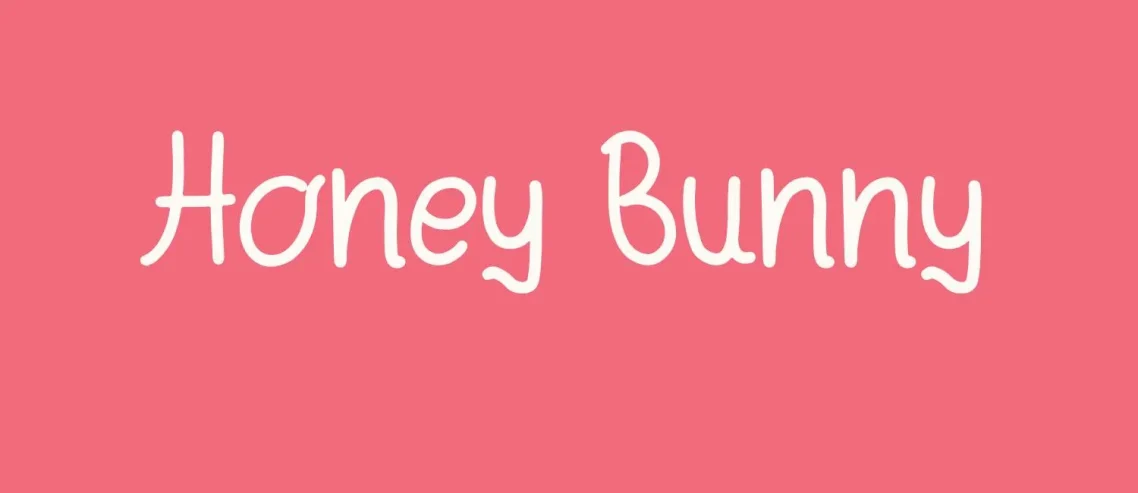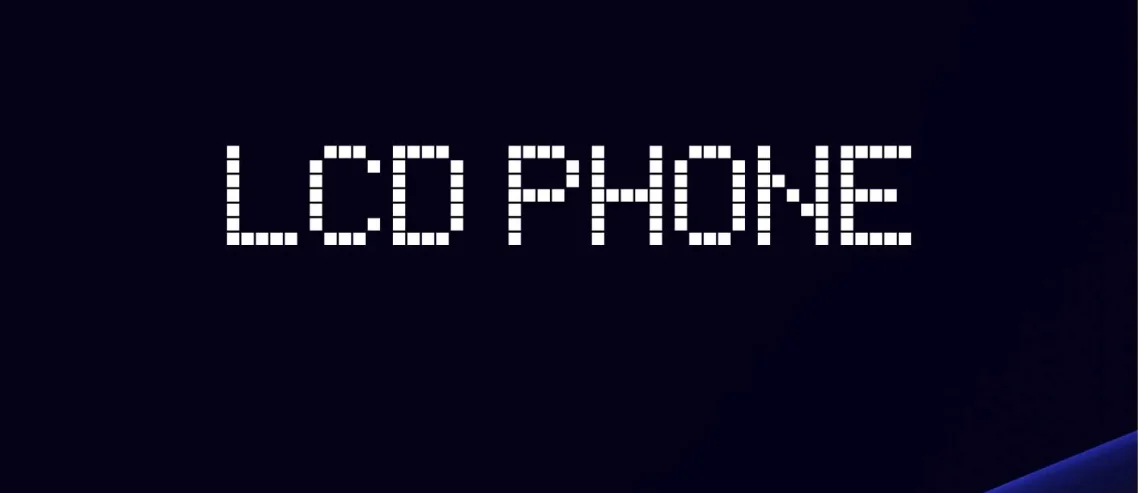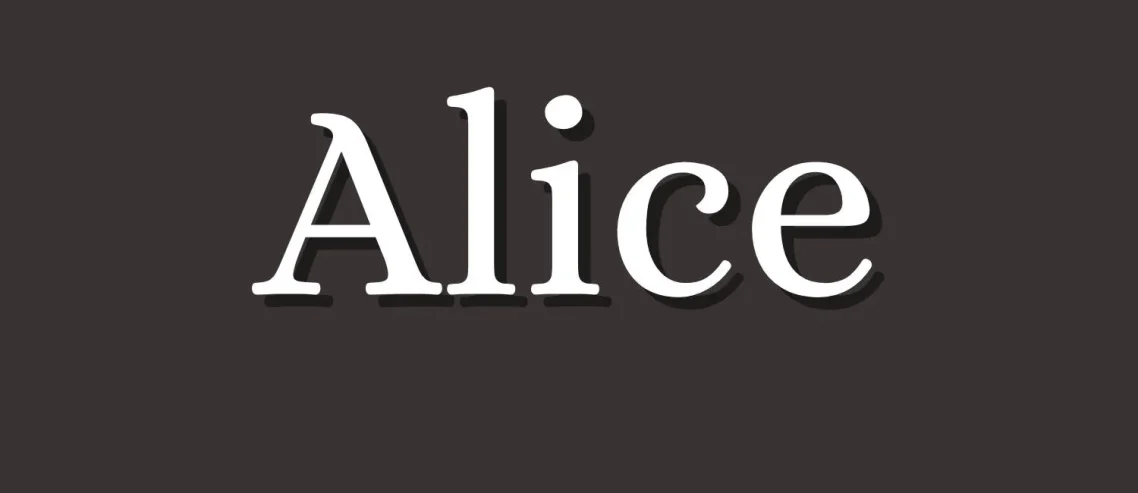
Honey Font Free Download
Honey Font is an attractive typeface with unique characters. This appealing typeface was created by a popular typographer named Mediengestaltung. This stunning typeface belongs to the script font family. It is available in single regular weight. This marvelous typeface is comprised of a large character set which includes uppercase alphabets, lowercase alphabets, numerals, punctuations, and …
Alice Font Free Download
Alice Font is a unique and elegant typeface that belongs to the fancy font family. The characters of this typeface are similar to the fancy font family. This appealing typeface was created by a renowned typographer named Benoît Sjöholm. There are more than 132 characters available in this font which includes uppercase alphabets, numerals, lowercase …
LCD Phone Font Free Download
LCD phone font is very much appealing to website and app developers. The designer of this amazing font is none other than Raúl Andrés Pérez Canseco and publicized by Grafito Design Foundry. It is available in OTF and TTF formats perfect for all computers. LCD phone typeface has dotted characters that are highly readable. It …
DS-Digital Font Free Download
DS-Digital Font is a monospaced raster font family created by D. Smith. The font family includes 4 fonts in 2 weights (Regular and Bold), with glyph coverage including all the Latin, Greek, and Cyrillic codepages. You can pair the typeface and make valuable designs with america font The fonts, including any derivative works, can be …
Dodger Font Free Download
Dodger Font is a sans-serif typeface designed by American type designer Vincent Connare. It is named after the Major League Baseball team Los Angeles Dodgers, for which it was designed. This Font was released in 2004 and is included in the Microsoft Windows operating system. Dodger Typeface is based on Connare’s earlier comic book-inspired fonts, …
Vintage Quotes Font Free Download
Vintage Quotes Font was designed by a well-reputed Indonesian typographer Muhammad Sirojuddin and it was publicized by Lettersiro Studio Foundry. The appearance of this stunning typeface is very similar to the Handwritten font family. This typeface has a large character set which includes uppercase letters, numerals, and lowercase characters. View of Vintage Quotes Font Vintage …